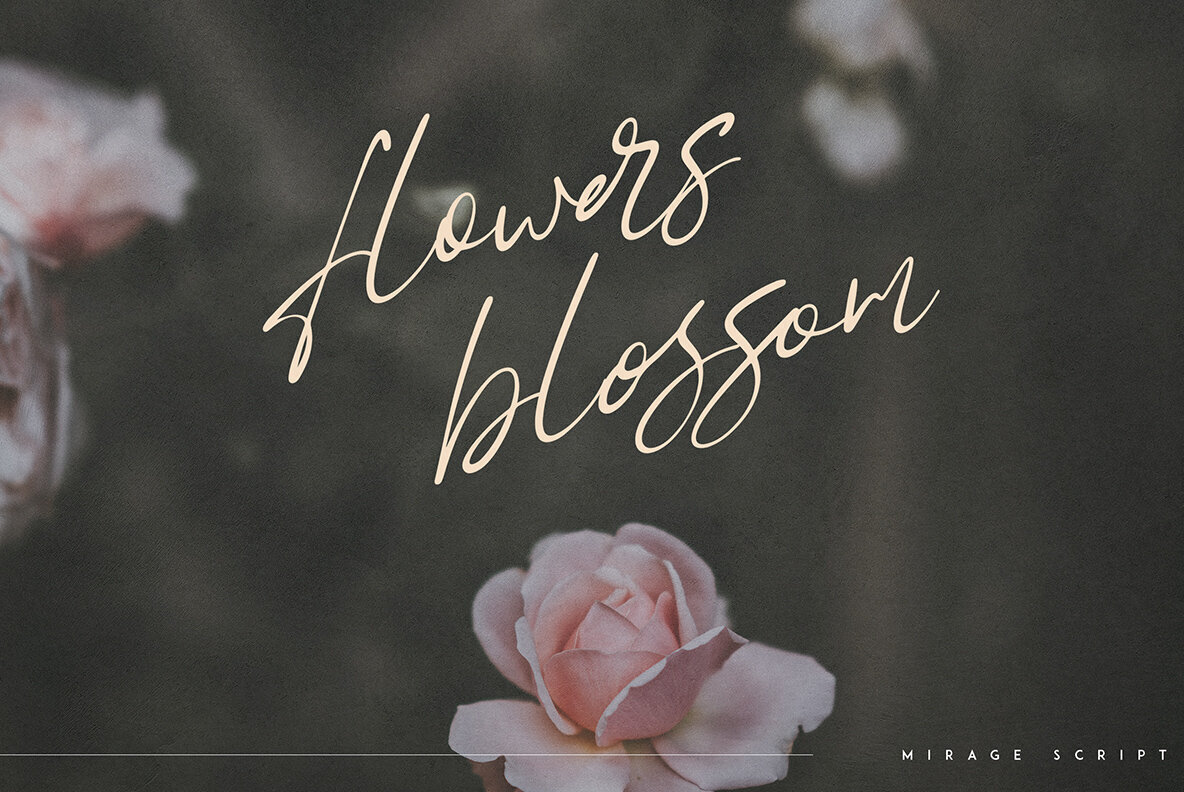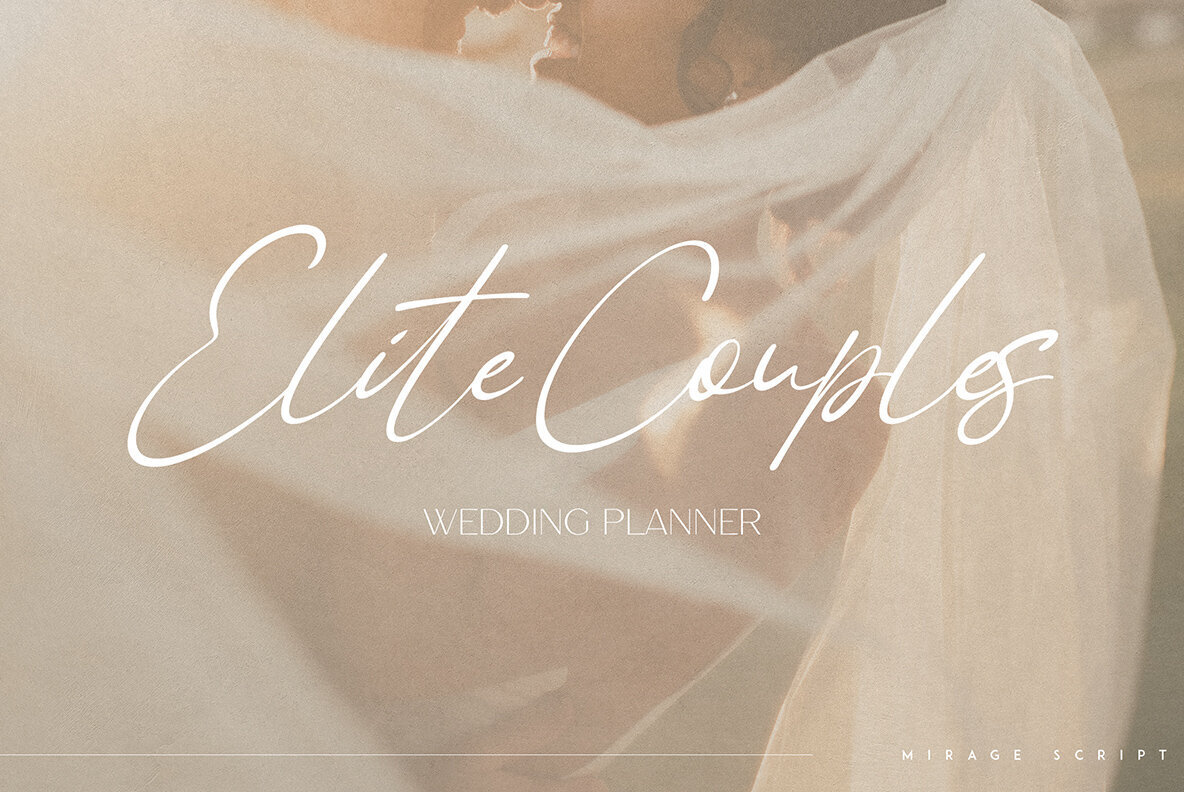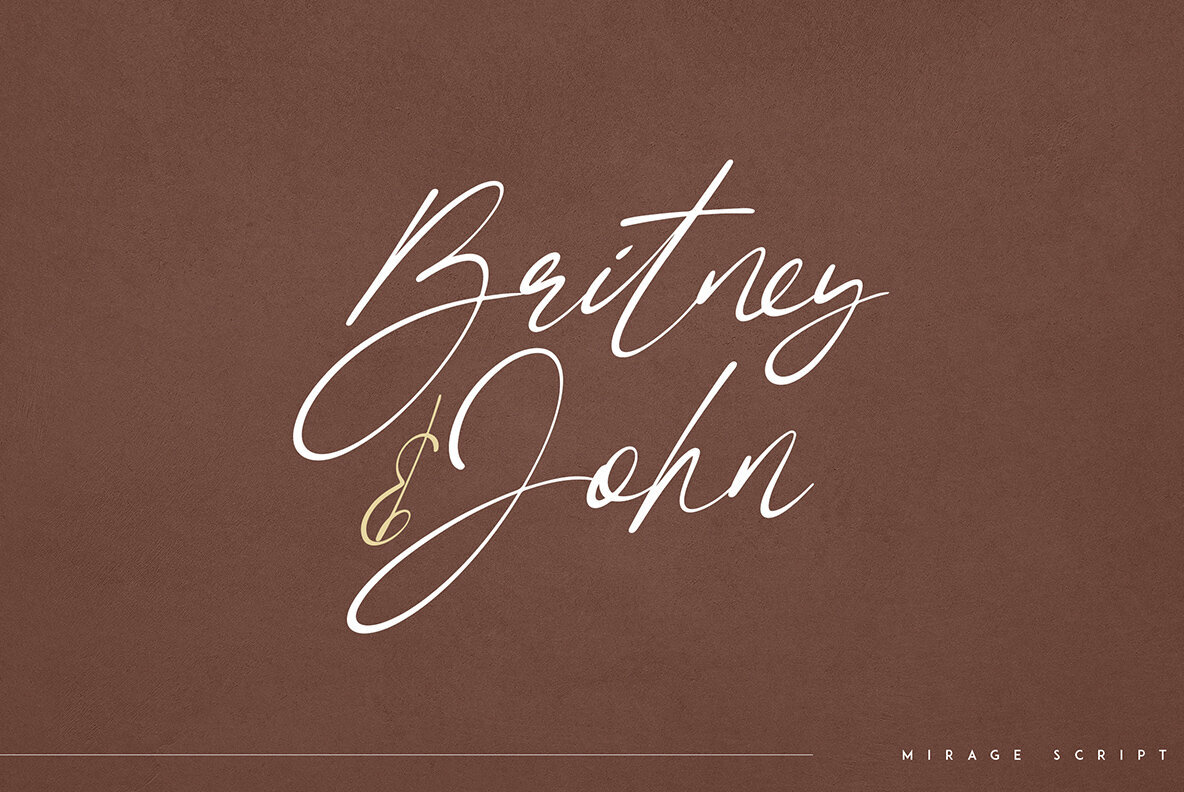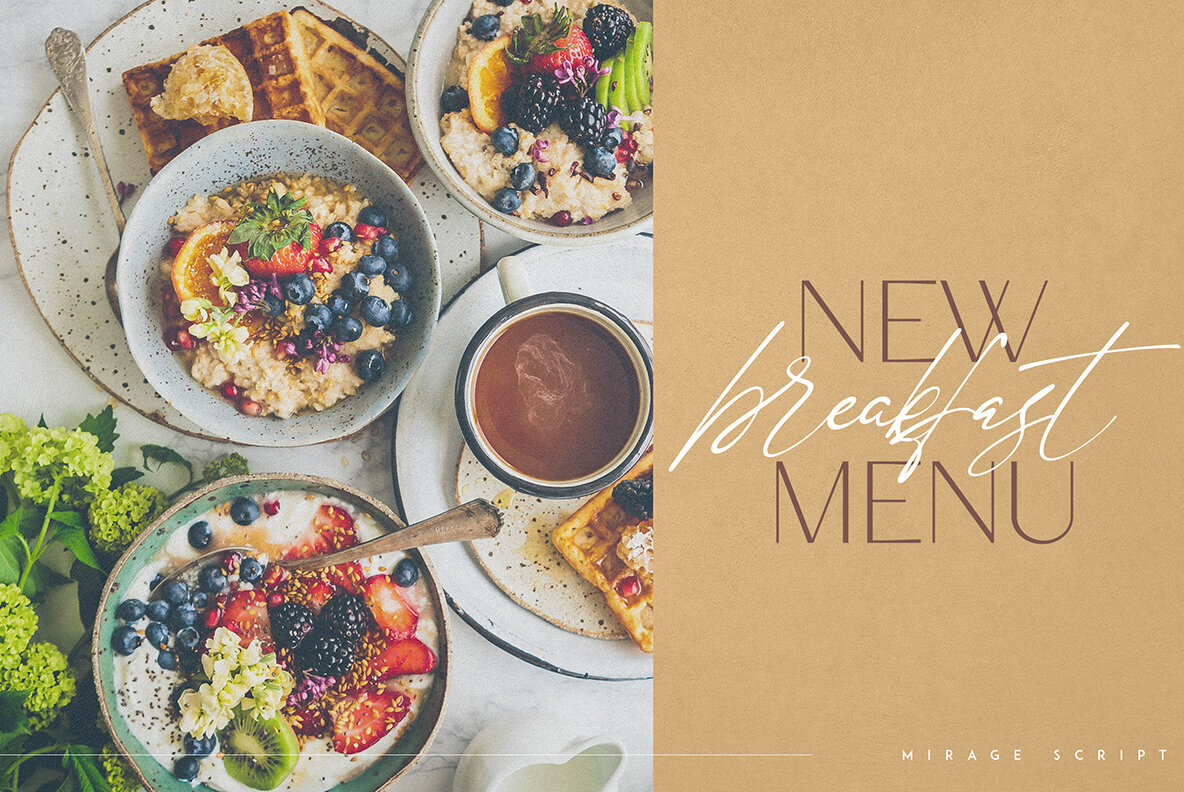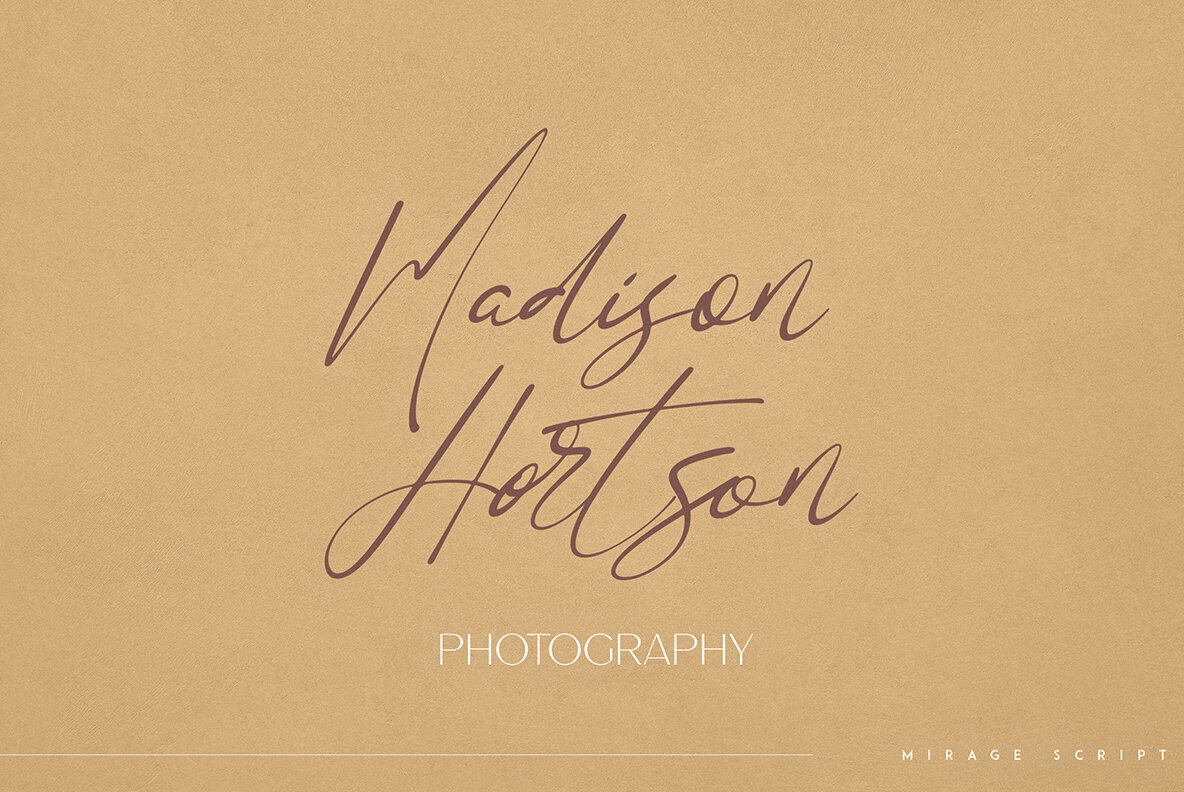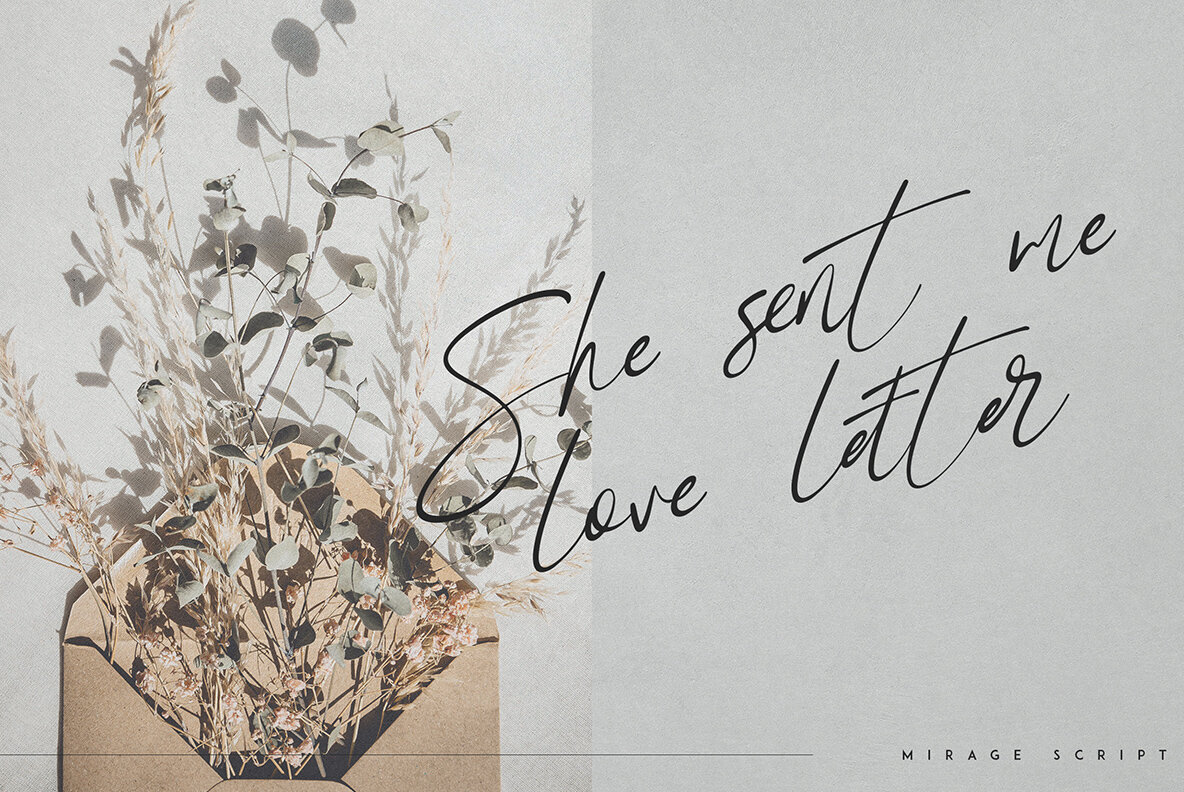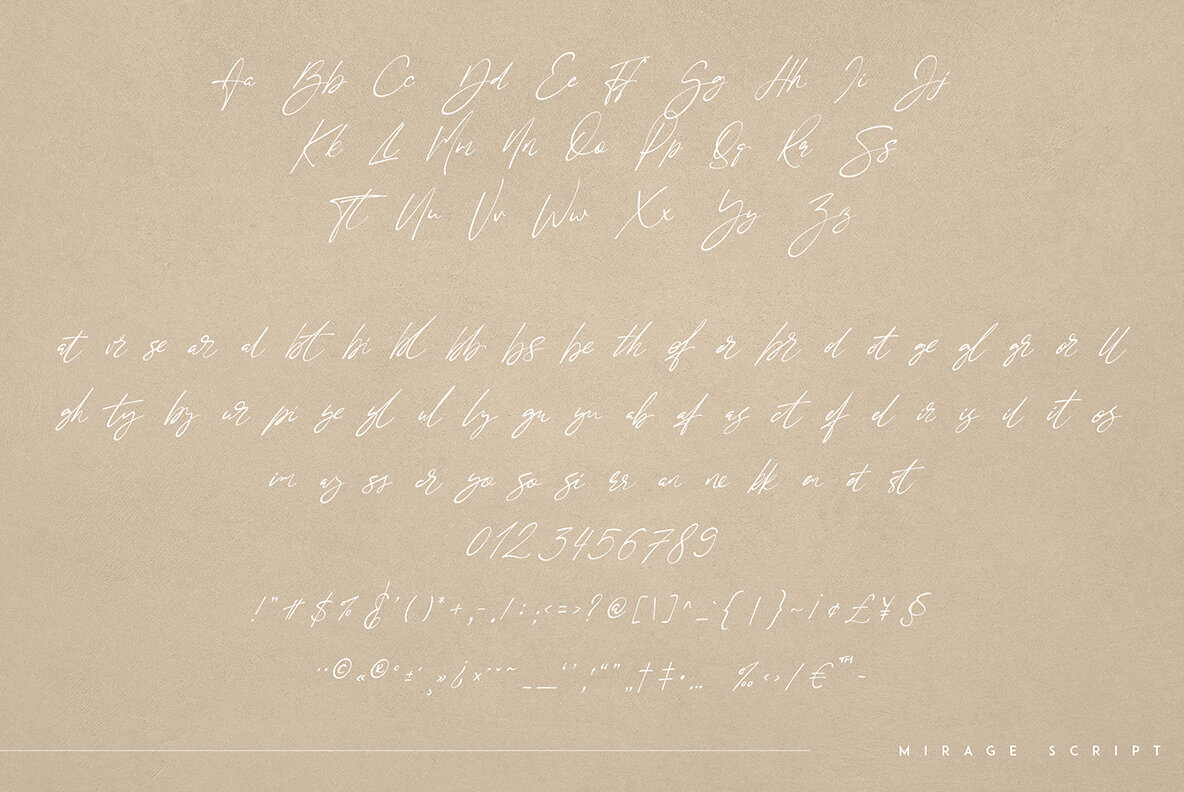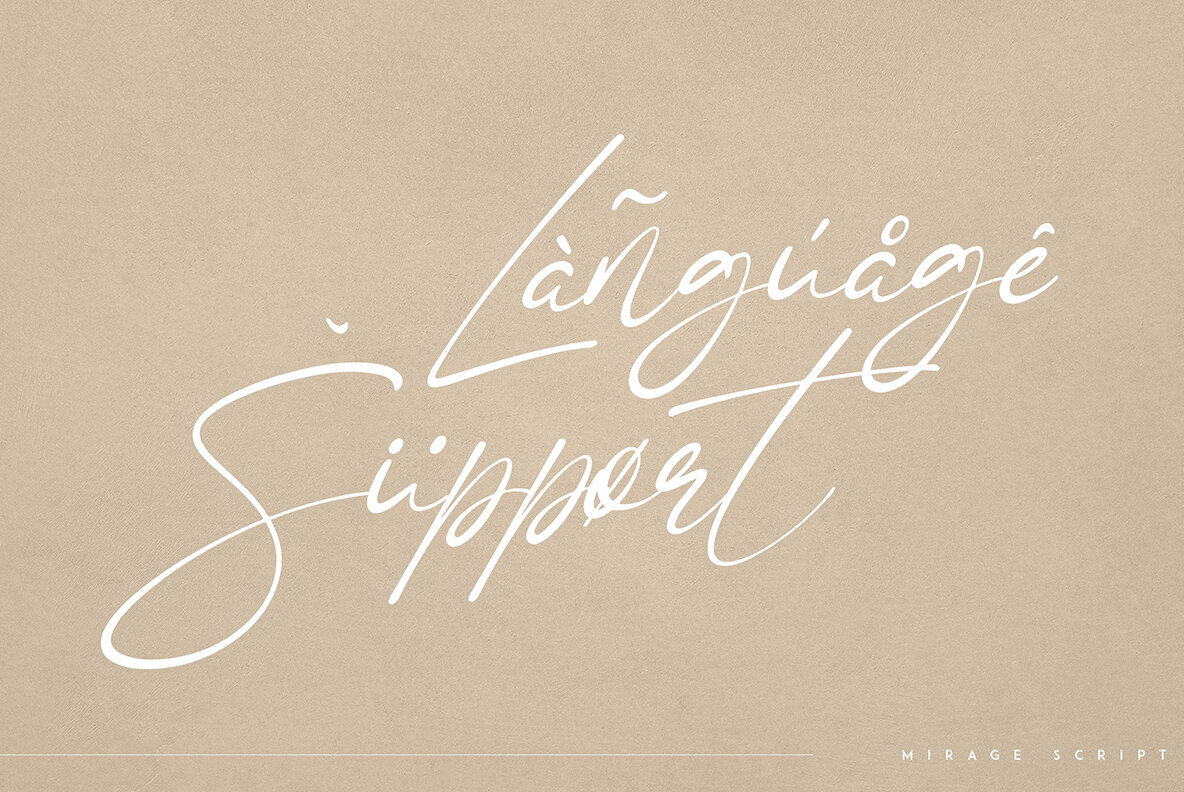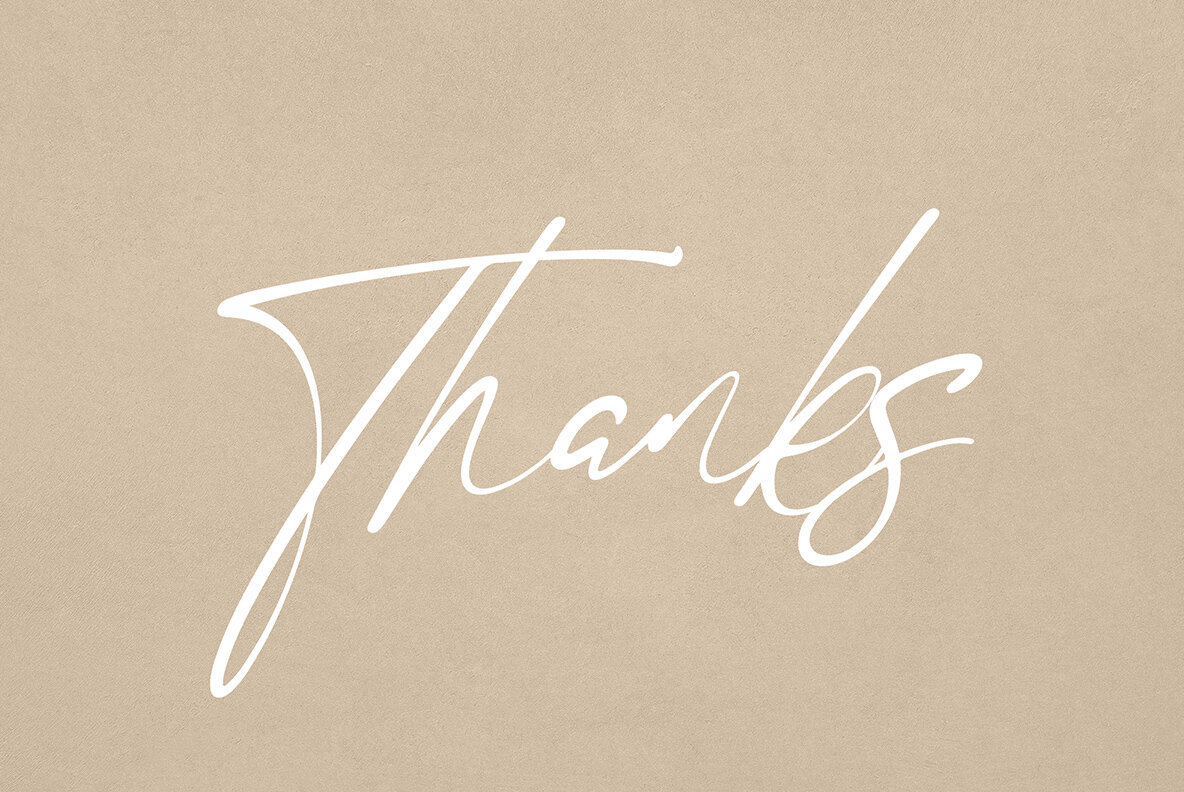
Mirage Font
Mirage
The Mirage script font infuses creativity into any design. Its organic curves and handwritten elegance offer a diverse range of applications, from branding projects to magazine headers. With an abundance of ligature glyphs and multilingual support, Mirage adapts effortlessly to various design styles and themes. Ideal for both large and small sizes, this font provides flexibility and sophistication.Mirage: Organic Script with Artistic Flair